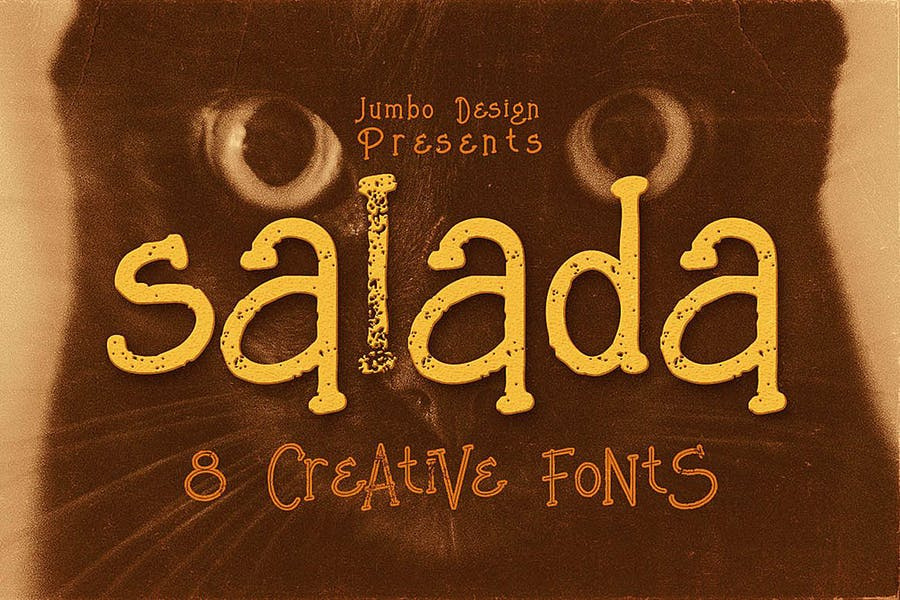
Salada - Funny Style Font
Salada - Funny Style Font is perfect for children's book illustrations, cartoon character design, comic strips, playful logo design, party invitations, greeting cards, toy packaging, entertainment posters, social media memes, game design, educational materials, and whimsical branding projects.
Salada - Funny Style Font is exciting because it brings instant joy and personality to any design with its playful, bouncy characters that seem to dance off the page. Its quirky letterforms and amusing details create an immediate connection with viewers, making it impossible to ignore and perfect for projects that need to capture attention and spread smiles.
The Salada - Funny Style Font family includes various weights and playful variations: Regular, Bold, Outline, Shadow, and Decorative styles, giving designers multiple options to create engaging and entertaining typographic compositions.
The font's wonderfully eccentric character shapes feature exaggerated curves, playful angles, and unexpected details that bring text to life with animated energy. Each letter seems to have its own personality, creating dynamic compositions that feel alive and engaging. The carefully crafted inconsistencies in the letterforms add to its authentic hand-drawn charm.
Salada - Funny Style Font excels in creating memorable brand experiences for businesses targeting families, young adults, or anyone seeking lighthearted communication. Its approachable nature makes complex information feel friendly and accessible, perfect for educational content, instructional materials, or community outreach programs.
Creative professionals love how Salada - Funny Style Font breaks traditional design rules while maintaining excellent readability. The font works beautifully in both large display applications and medium-sized text blocks, though its playful nature shines brightest in headlines and attention-grabbing elements.
This remarkable typeface brings instant warmth to digital platforms, print materials, and environmental graphics. From food truck branding to children's app interfaces, Salada - Funny Style Font creates lasting impressions that stick in viewers' minds long after the initial encounter.